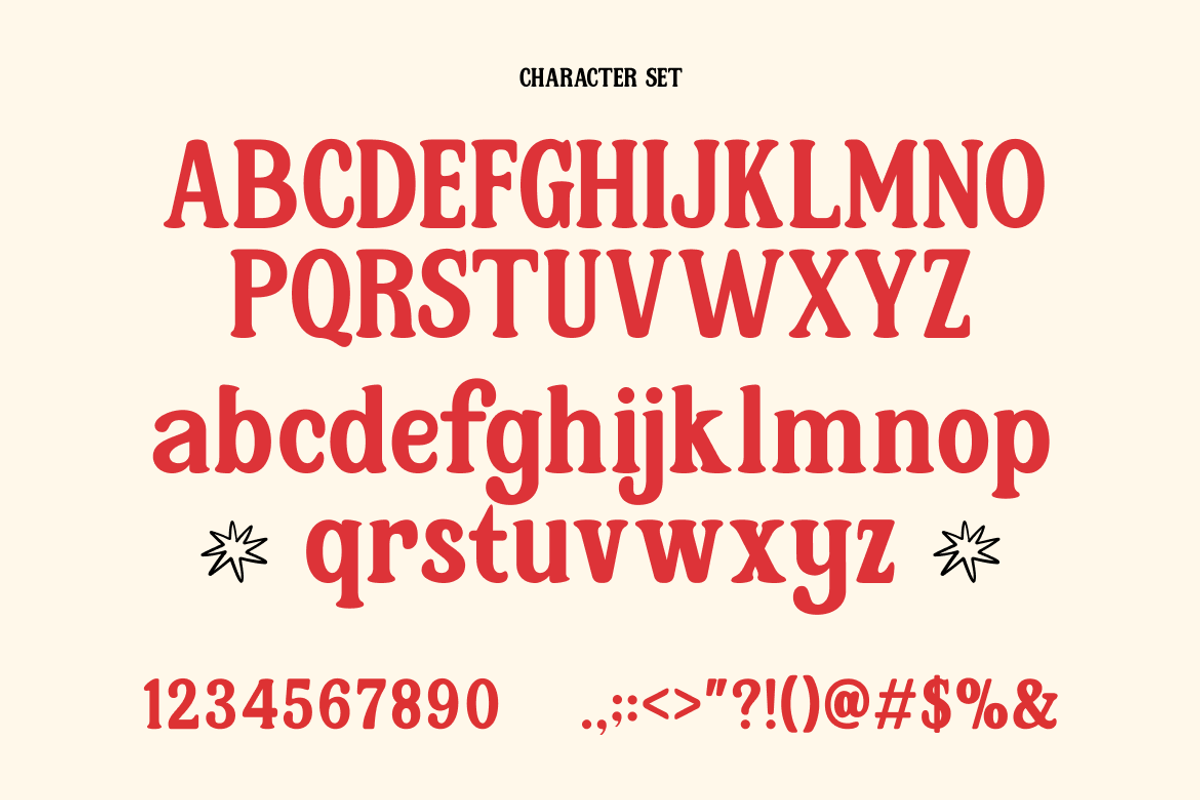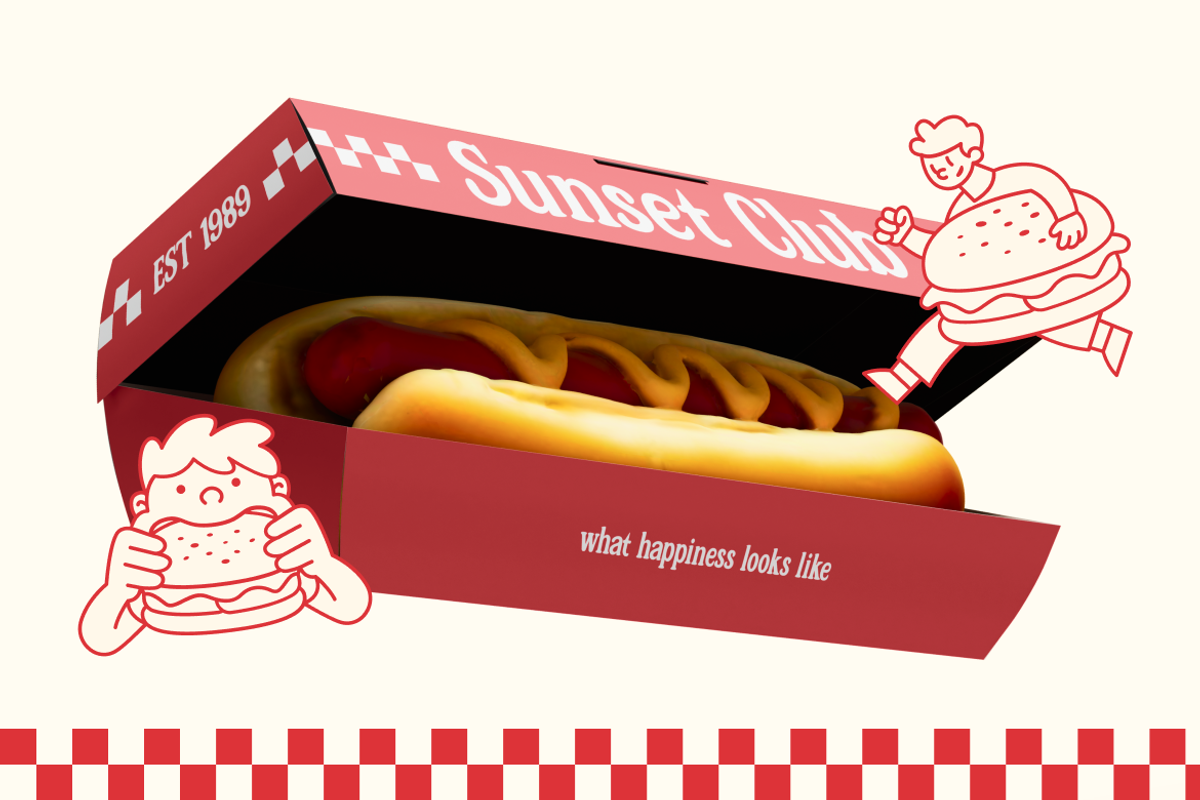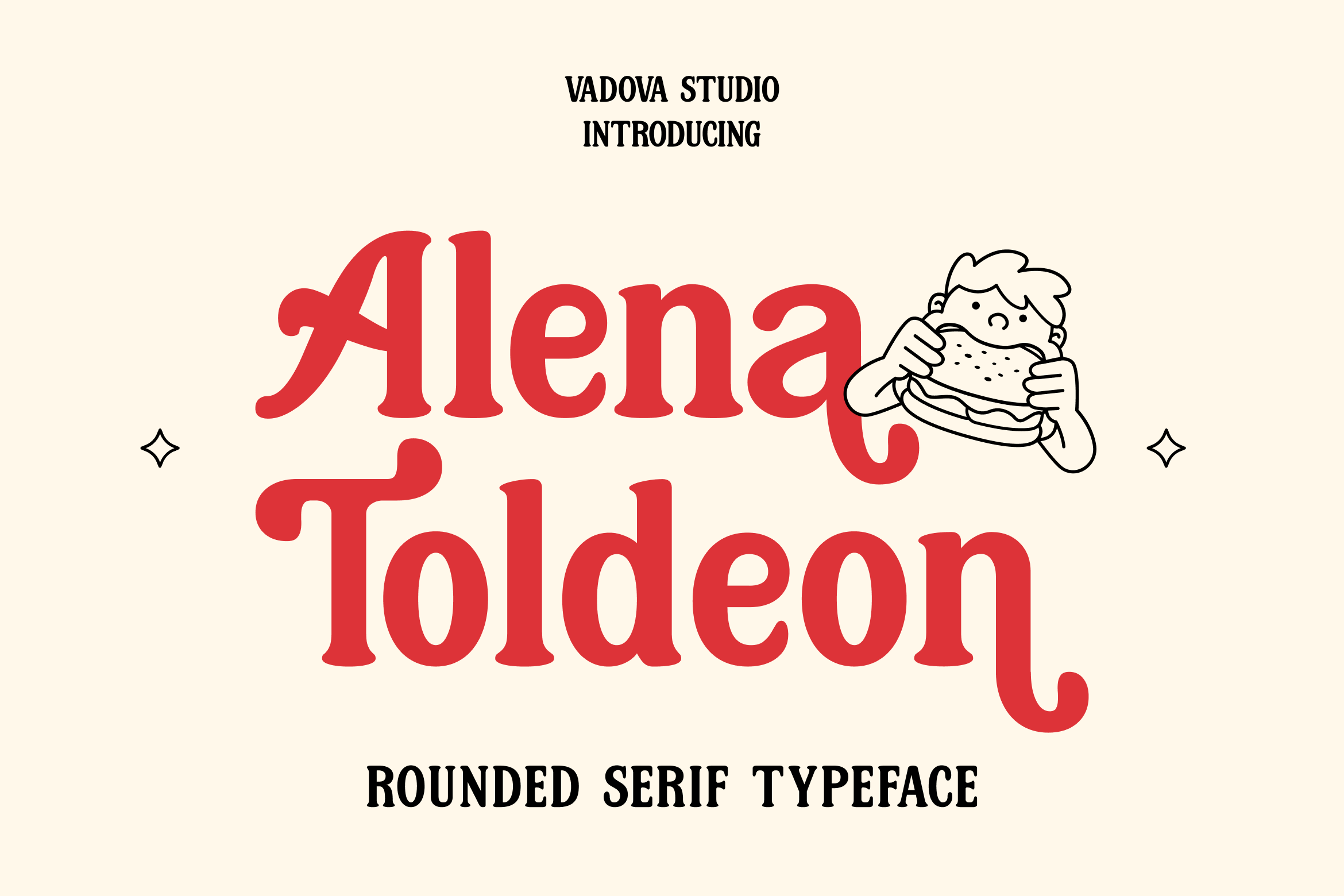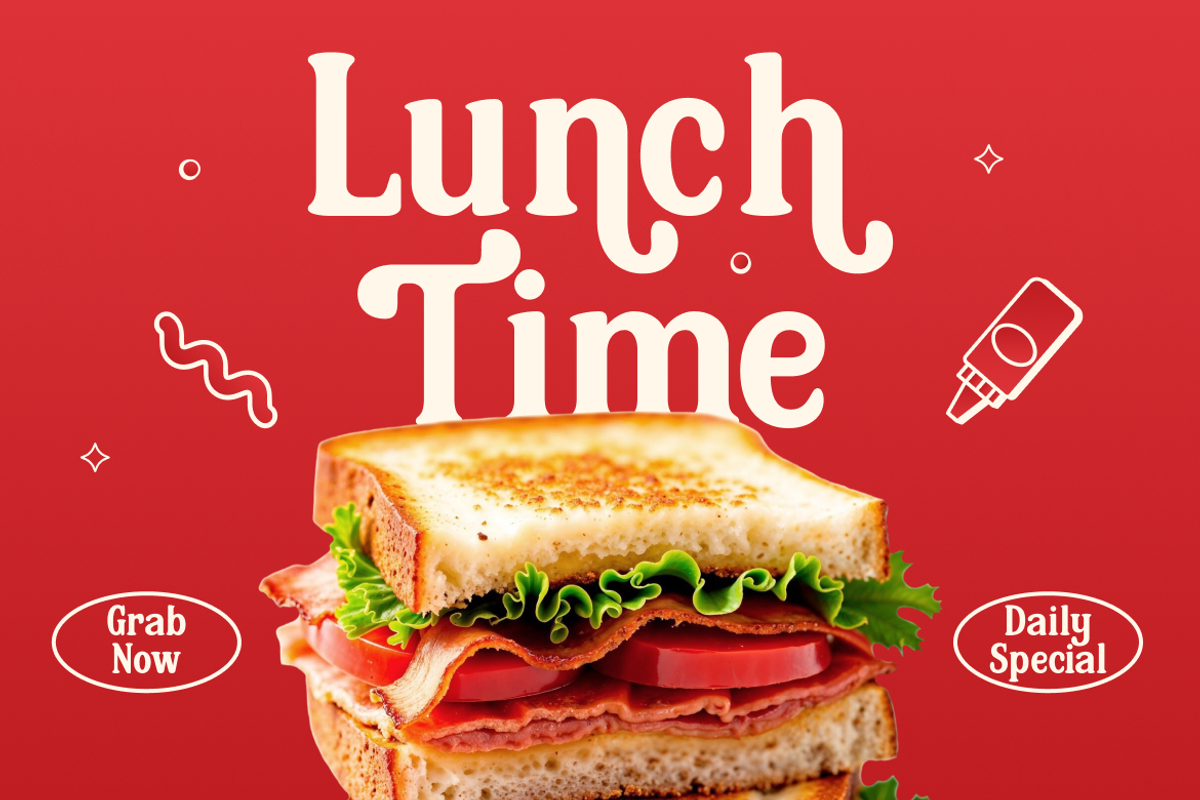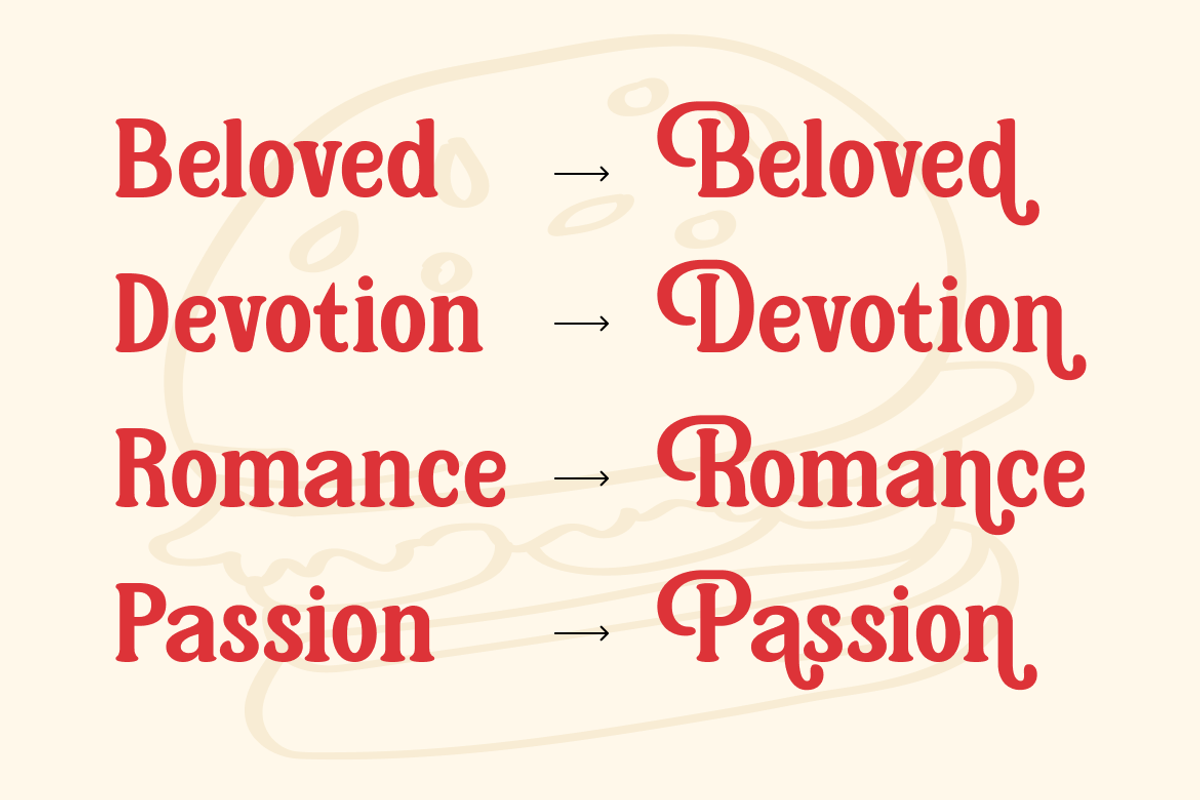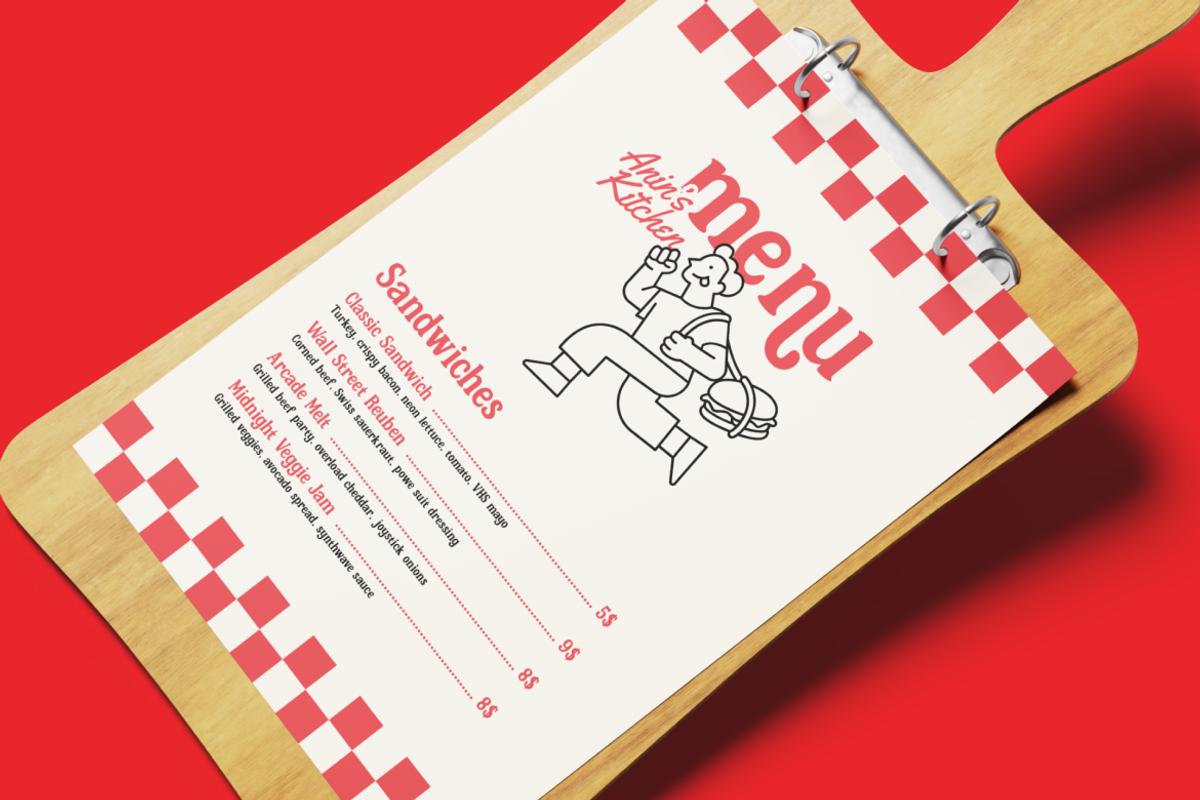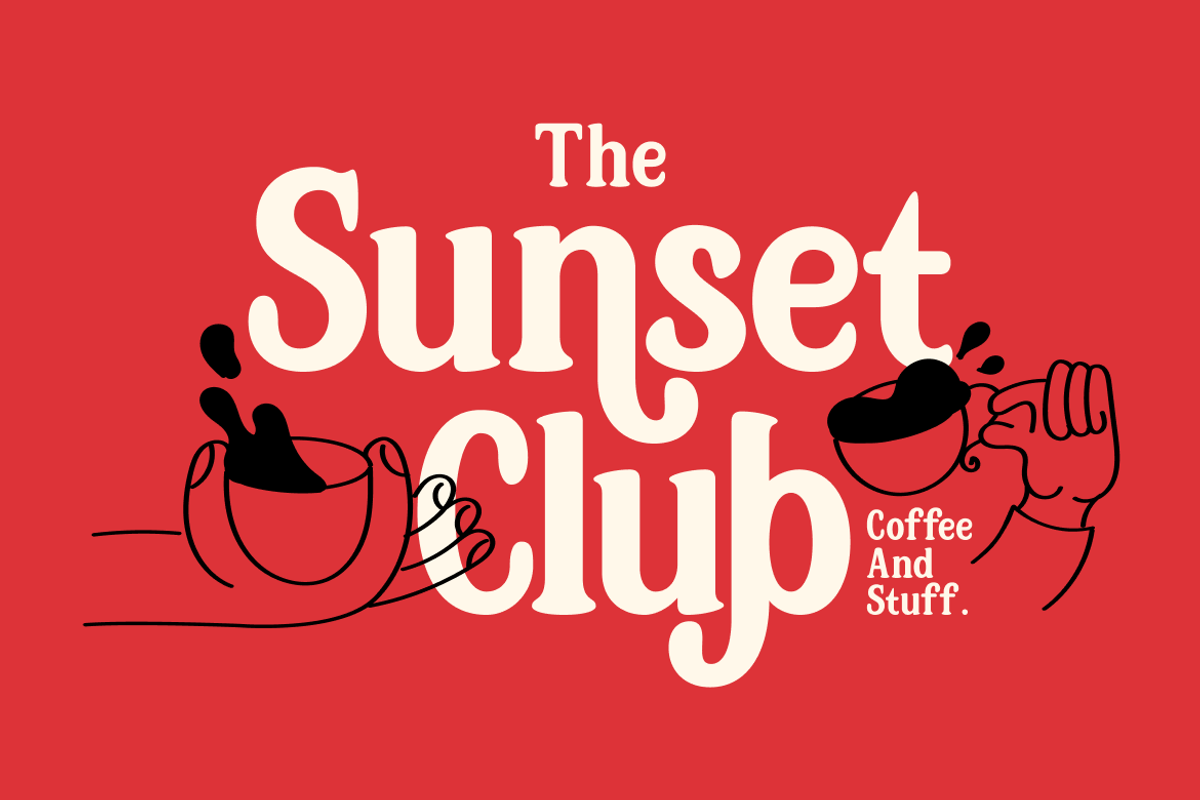
Alena Toldeon Rounded Serif Typeface
Alena Toldeon is a playful yet elegant rounded serif typeface inspired by retro curves and friendly charm. It features soft terminals, generous proportions, and a cheerful personality, making it ideal for logos, food branding, packaging, and children's publishing. With both uppercase and lowercase support, punctuation, and numerals, Alena Toldeon is designed for versatility while keeping its fun tone.
Alena Toldeon is perfectly suited for creators looking to bring a nostalgic yet friendly voice to their designs. It's great for businesses in food, hospitality, or kids-related industries, offering a blend of classic serif structure with a warm, rounded twist. Use it on logos, packaging, editorial titles, or lifestyle branding where approachability and style are key.
- Rounded serif letterforms for a soft, welcoming character
- Thick, playful strokes with retro-inspired personality
- Smooth terminals and organic curves enhance friendliness
- Balanced proportions that maintain charm at any size
- Ideal for branding, packaging, and eye-catching headlines
- Café branding, bakery packaging, and food-related products
- Children's books, educational materials, and playful signage
- Retro posters, nostalgic logos, and vintage-inspired merchandise
- Social media graphics with a warm, approachable tone
- Creative projects that need charm, fun, and bold personality
Bring charm to your words, Alena Toldeon let your message speak with warmth and character